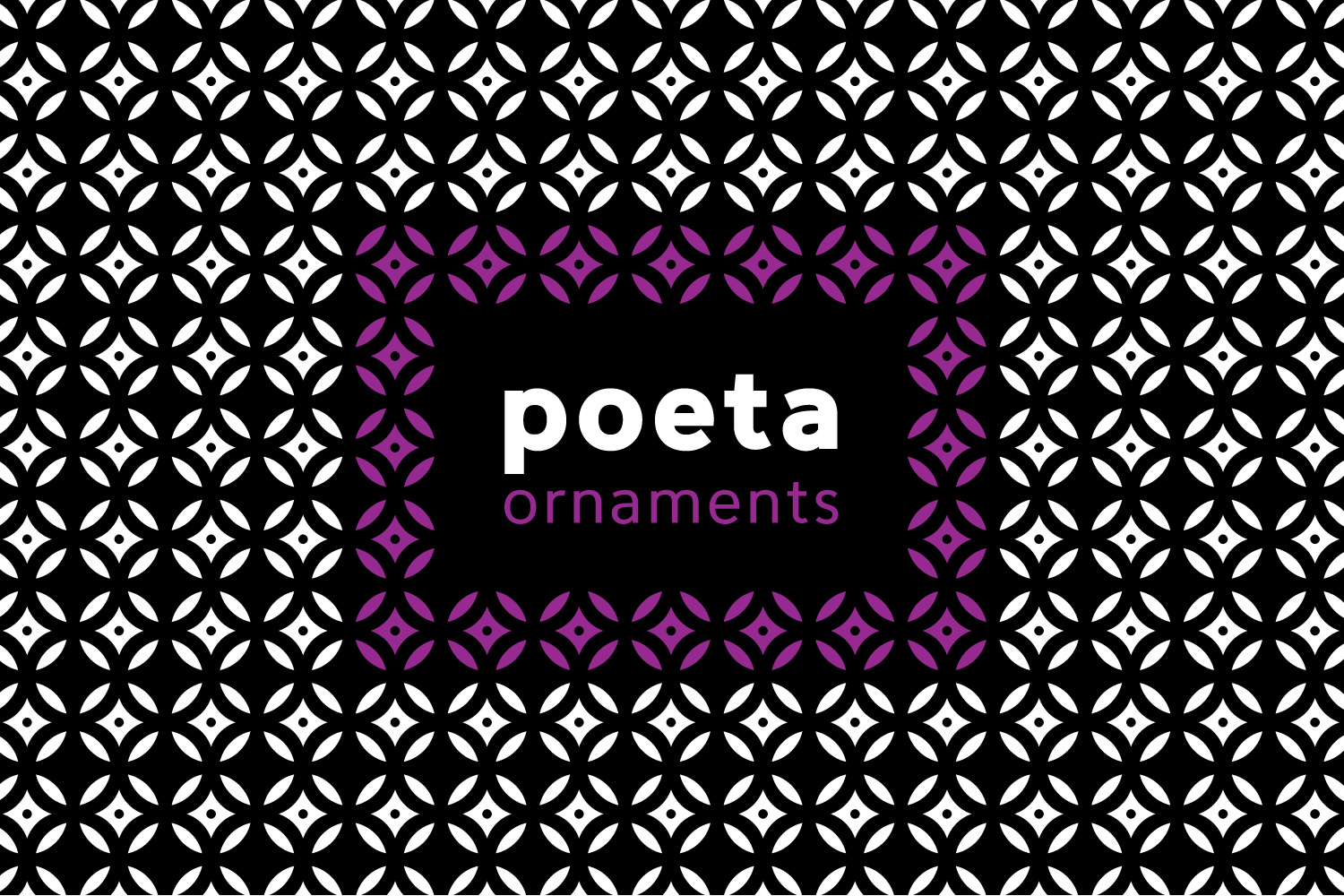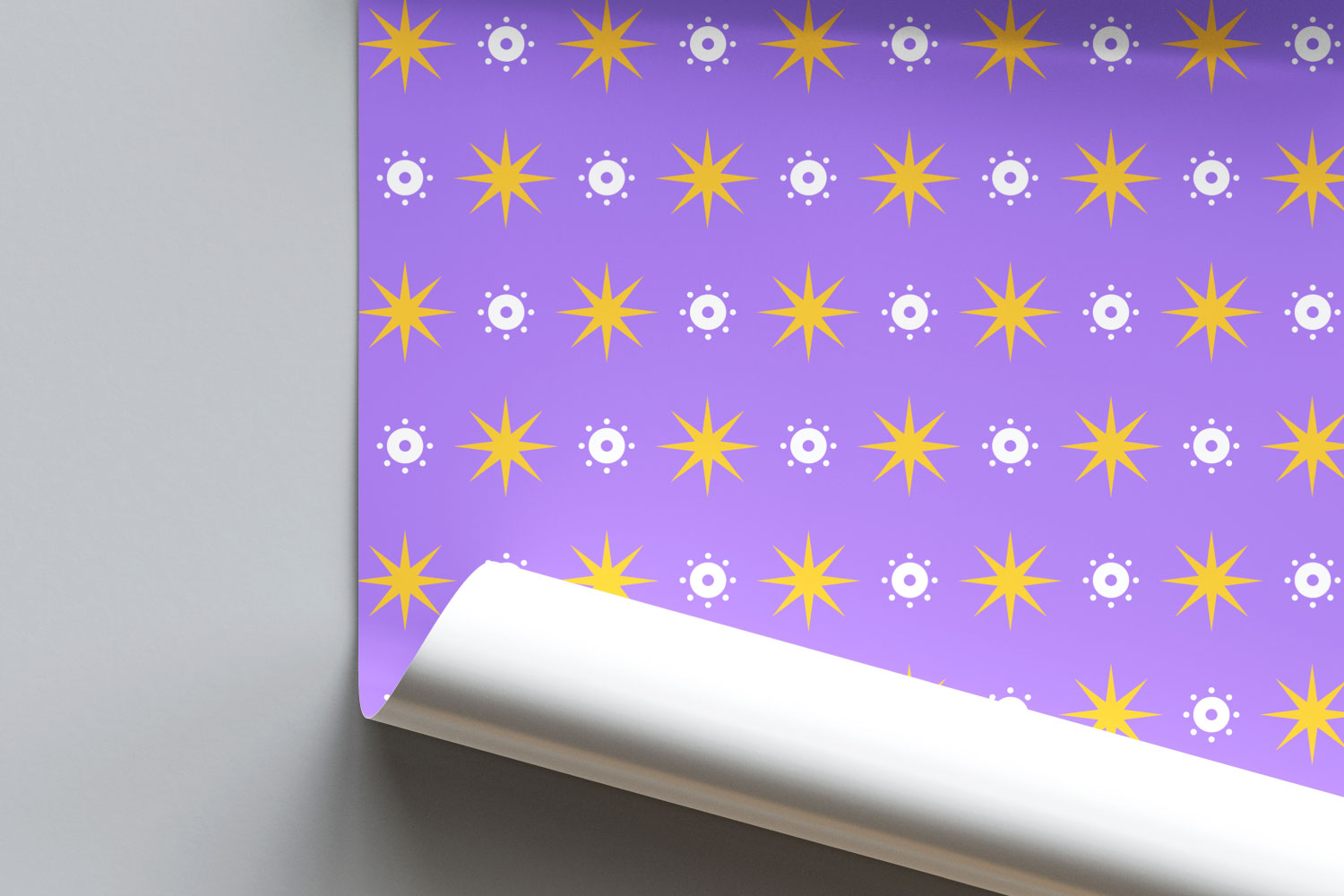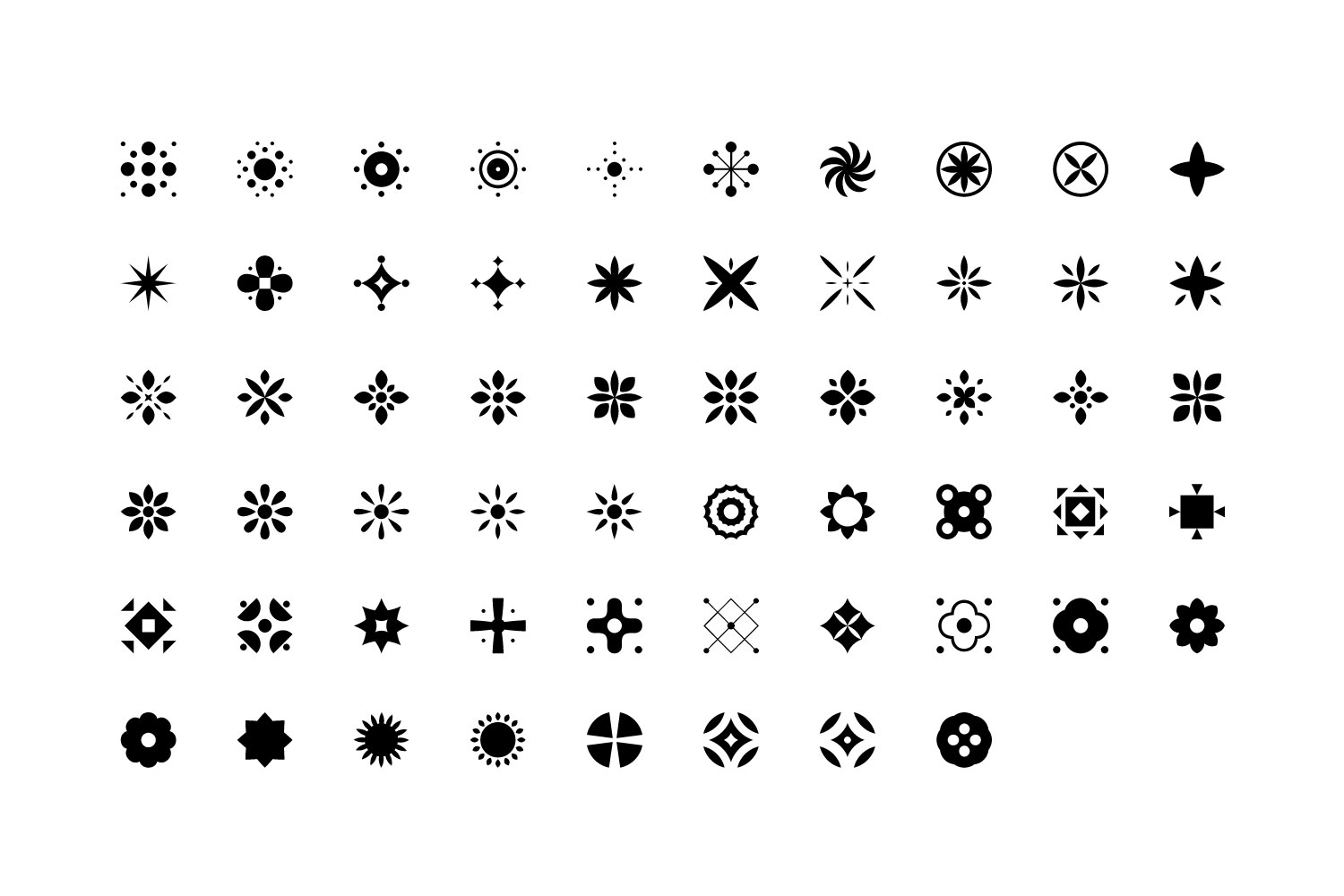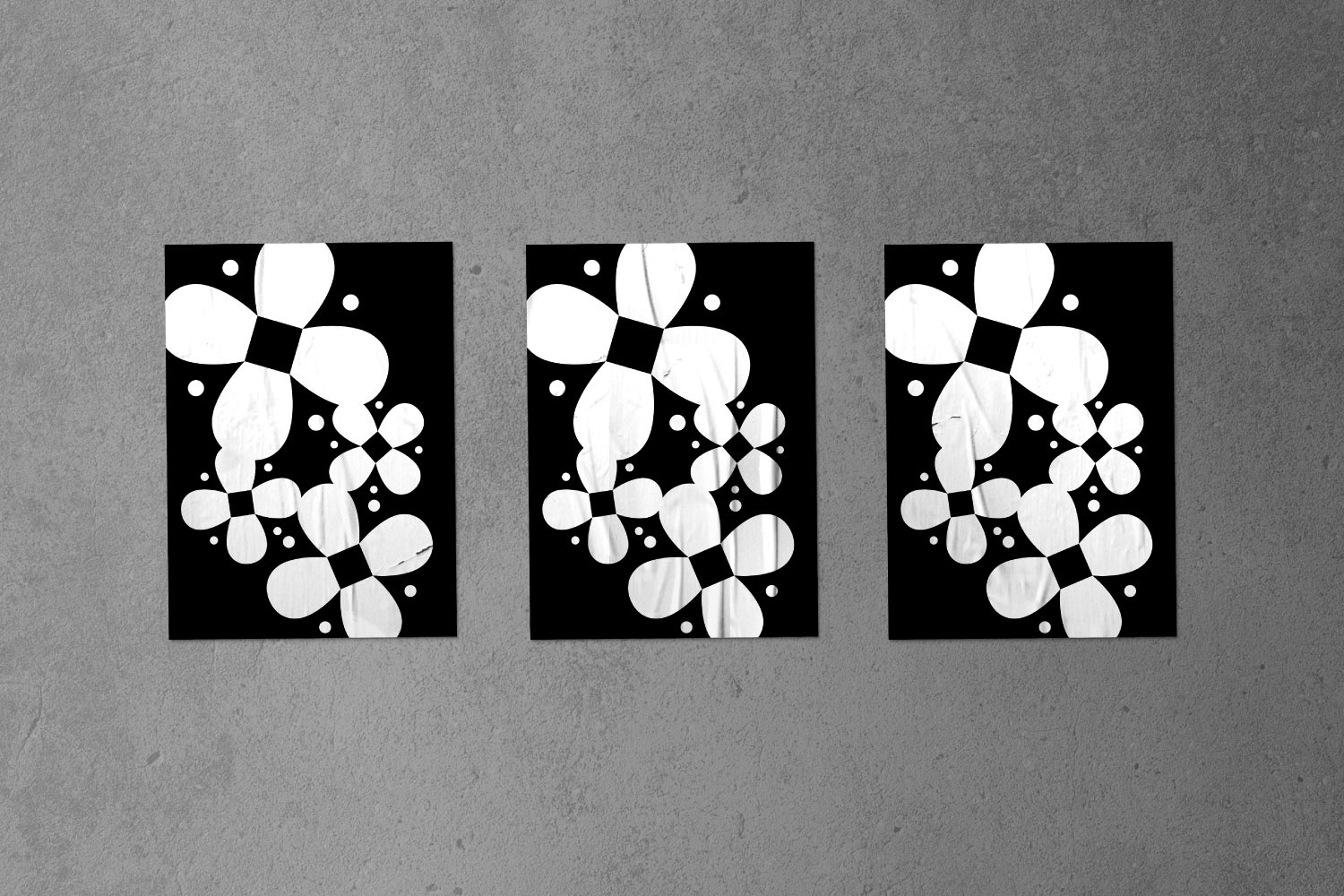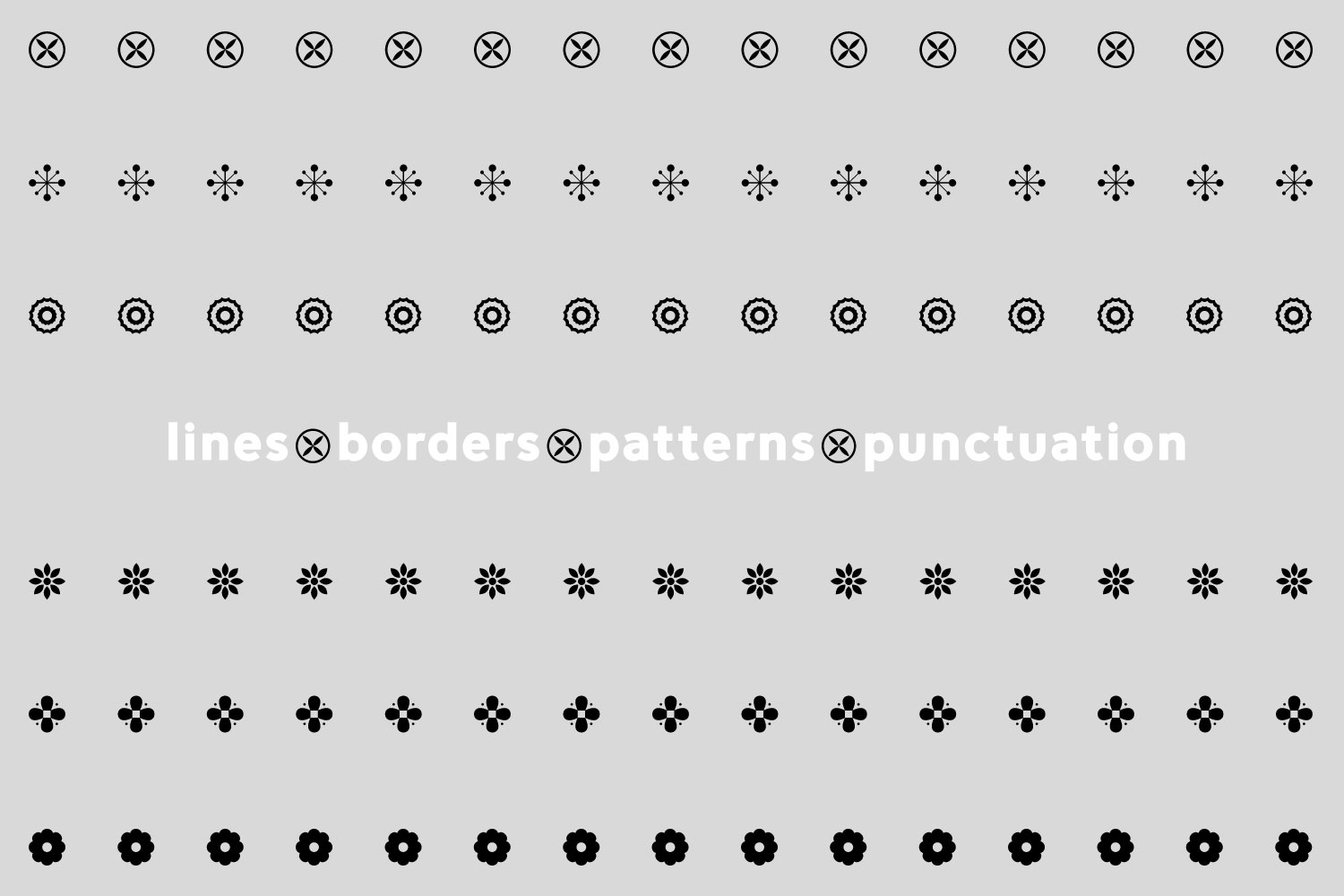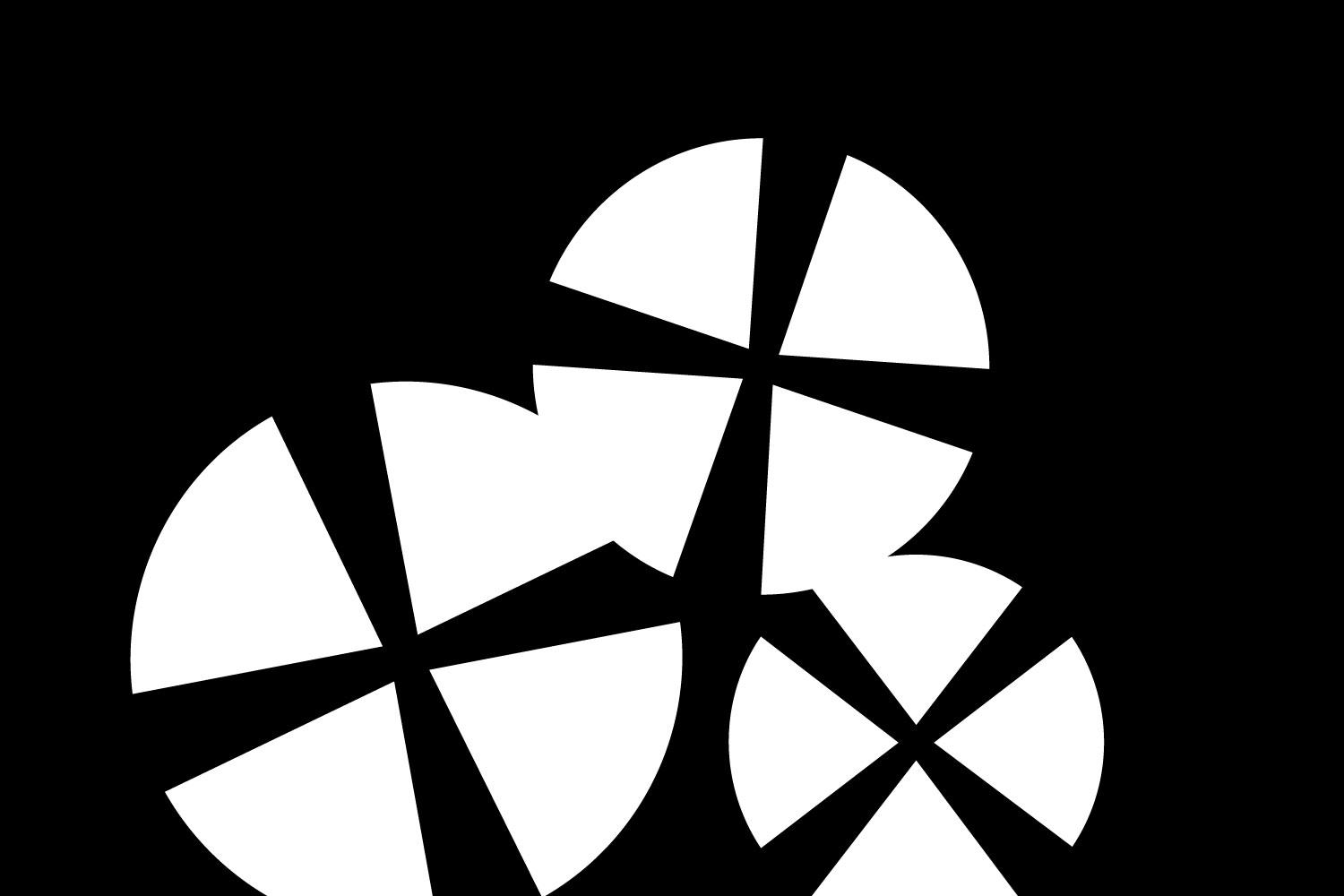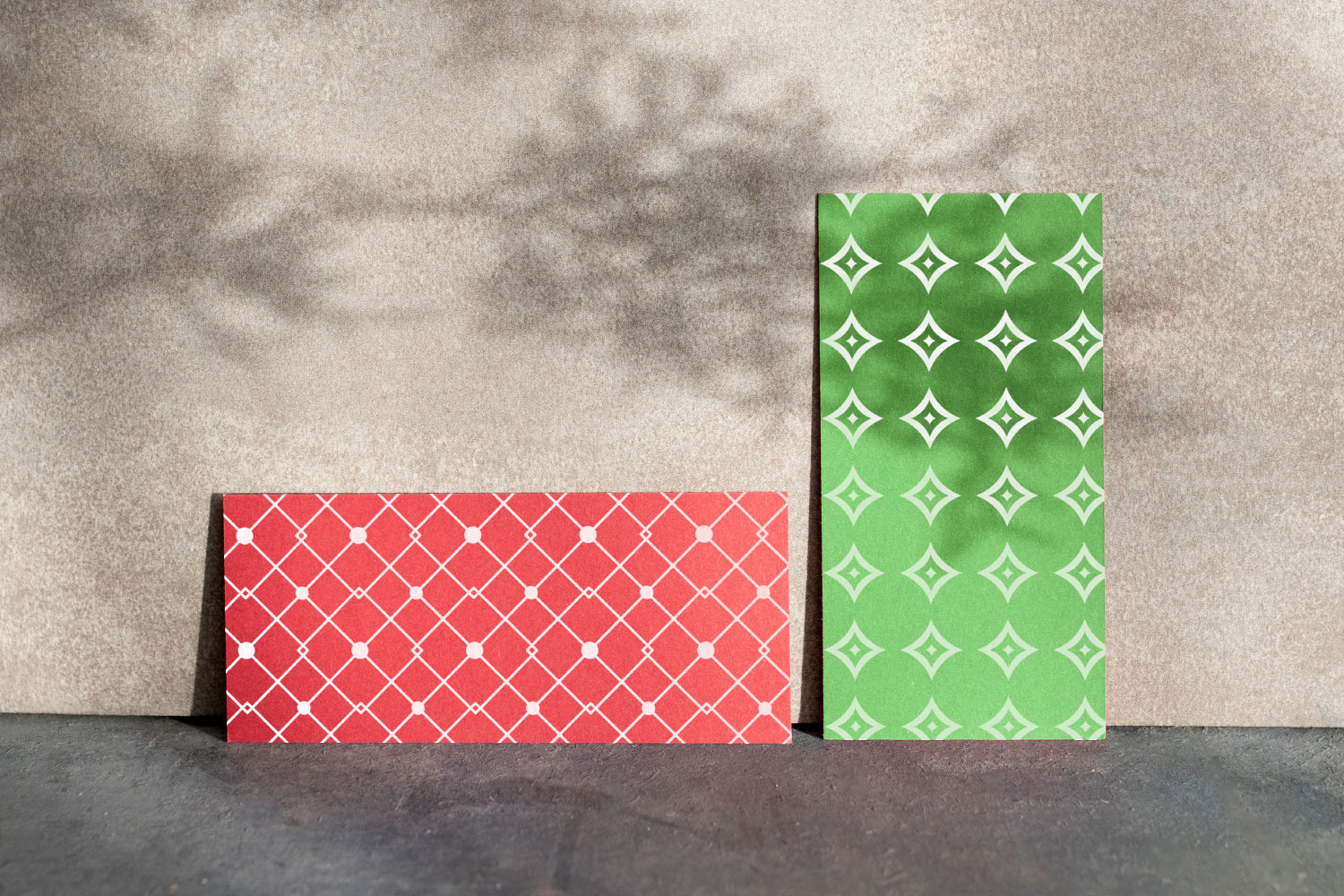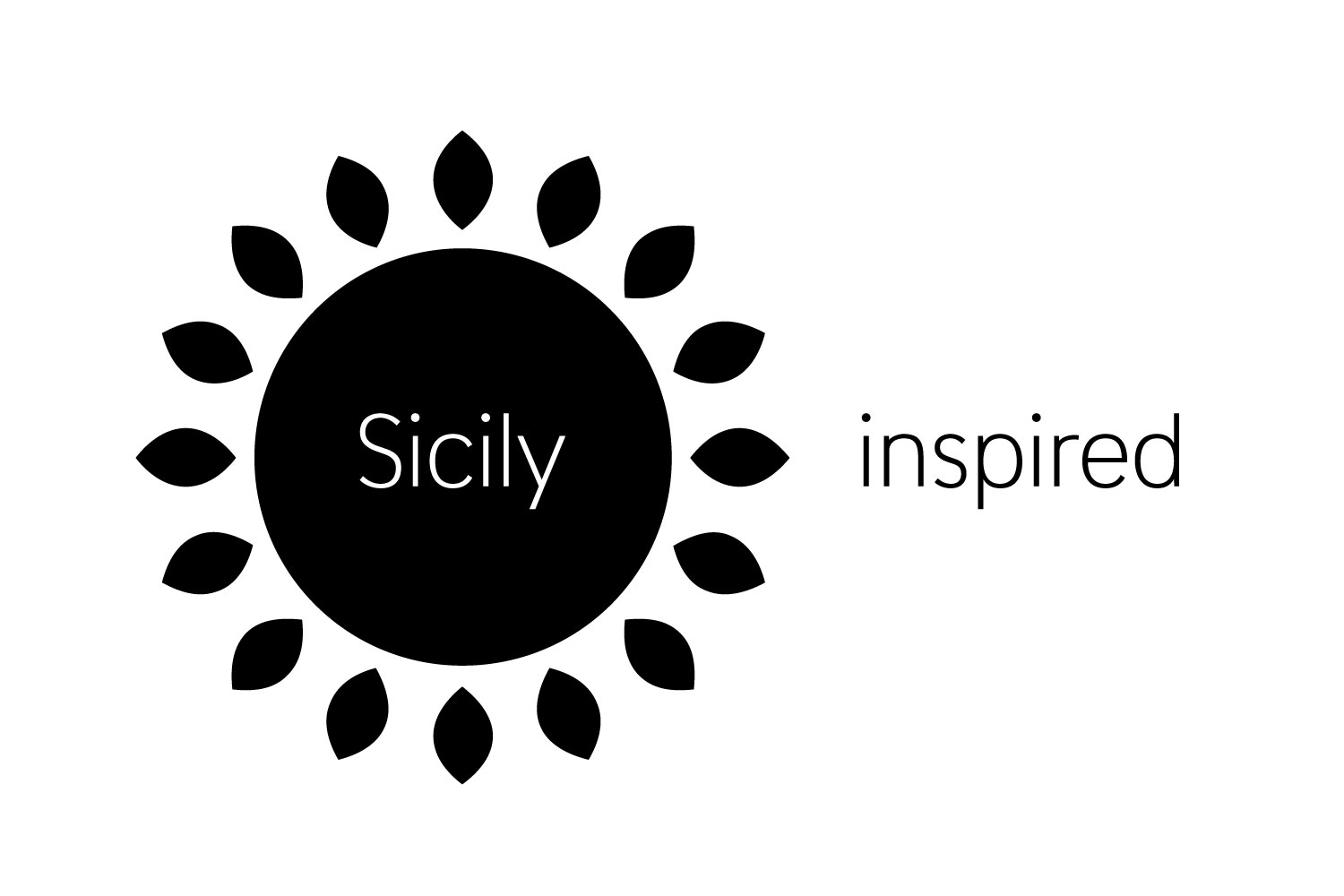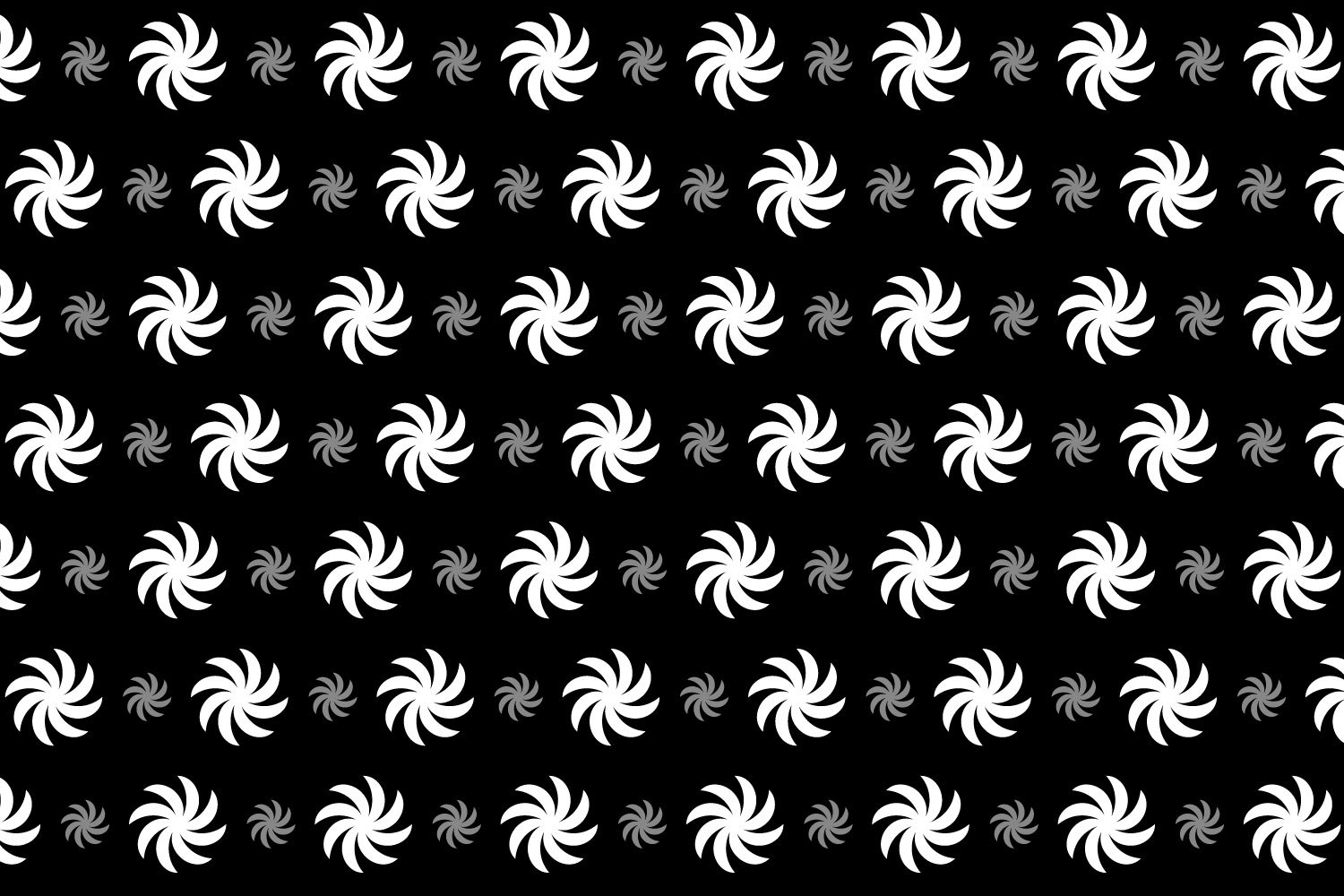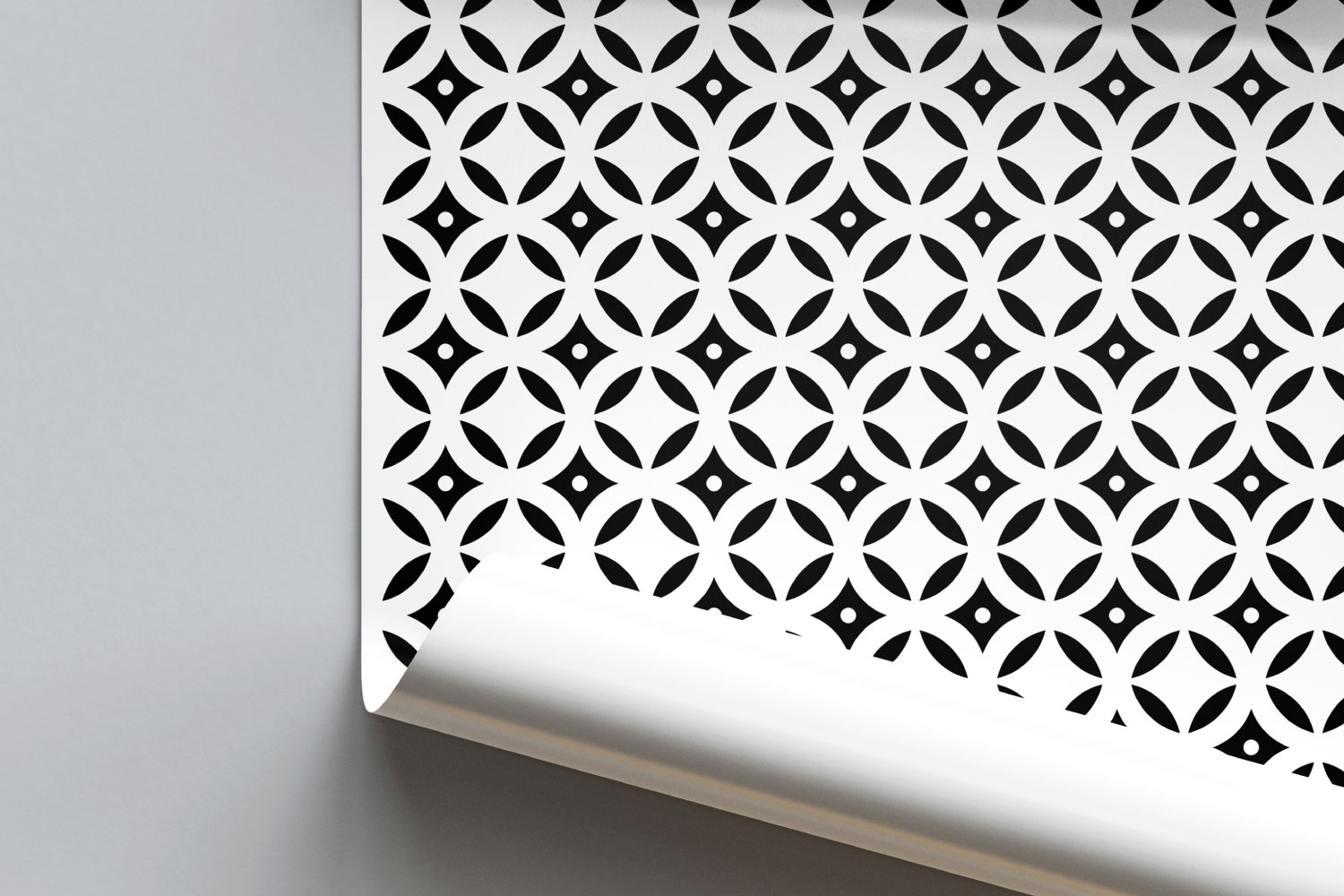
Poeta (1 font)
The symbols are versatile enough for simple decoration or festive holiday moods. Designers can use Poeta to make unique lines, borders, backgrounds, or ornamentation within or around text. Try replacing a simple straight line with repeated symbols. Cover an area in pattern to add visual interest to a design. Use the forms to decorate a chapter title or to mark the end of a magazine article. Replace a letter in a word with a symbol to create a memorable statement. Poeta will add visual poetry to any design project.
This font began with sketches of patterns seen in ceramic tiles around Sicily. It is named Poeta because Sicily is an island rich in poetry traditions.